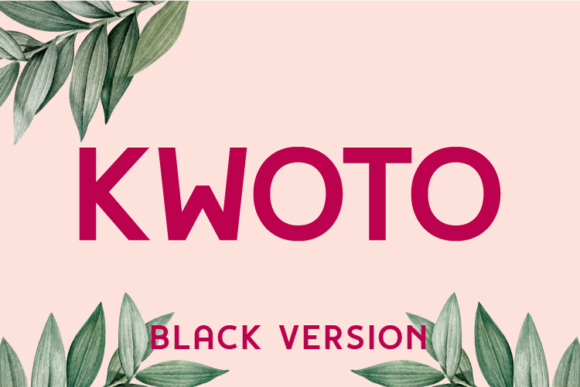
Kwoto Black Font
Introducing the Kwoto Black Font, a striking sans serif font brimming with personality and versatility. This masterpiece from Nan Design effortlessly elevates your projects, gracing them with a unique charm that commands attention.
Kwoto Black is a typographic chameleon, adapting seamlessly to various applications, be it logos, posters, book covers, or any creative endeavor that demands distinction. Its bold and confident strokes exude a timeless elegance, sure to leave a lasting impression on your audience.
Immerse yourself in the boundless possibilities. Whether crafting a logo that exudes authority or a poster that sparks imagination, Kwoto Black rises to the challenge with unwavering flair. Its sharp edges and commanding presence make it an ideal choice for headlines, titles, and branding elements, demanding attention and leaving a lasting impact.
Step into the realm of typography and unleash your creativity with Kwoto Black. Discover the boundless elegance it brings to book covers, where its bold strokes harmonize perfectly with captivating storylines. Unleash your inner artist and let Kwoto Black transform your projects into masterpieces that captivate and inspire.
Dare to embrace the extraordinary with Kwoto Black. Its versatility extends to social media, where it elevates your posts and stories, amplifying your message with a touch of sophistication. Kwoto Black is more than just a font; it's an extension of your creative vision, a tool that empowers you to craft a unique visual identity that resonates with your audience.
Experience the transformative power of Kwoto Black today and embark on a journey of creative exploration. Let its bold strokes ignite your passion and propel your projects to new heights of visual excellence. Embrace the beauty of typography and redefine the boundaries of creativity with Kwoto Black.